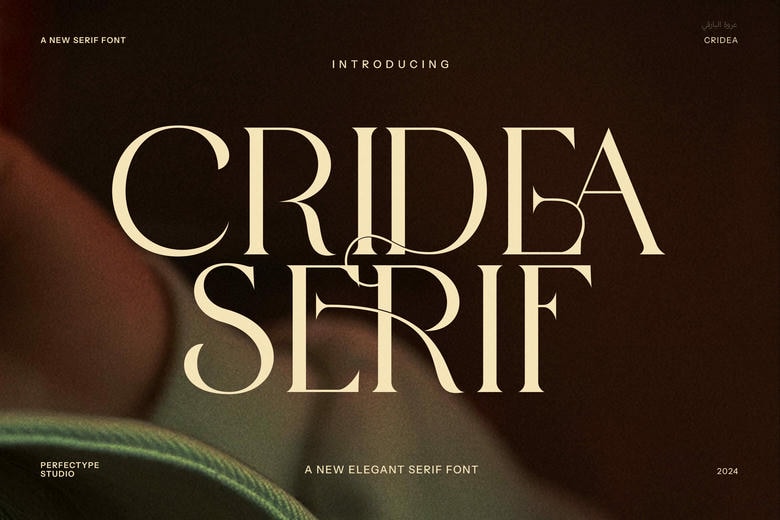
Cridea Font
One of the most beautiful textual fonts available on the market is the Cridea Elegant Serif Font and it is unmistakably inspired by the oldest forms of calligraphy. The calibre of the design is easy to comprehend; the serifs mature and classic, the curves sleek and sophisticated to add an air of timeless elegance to any project. Designed with an immense attention to detail regarding the shapes of the letterforms Cridea evokes a scent of classic luxury while not at the same time feeling old-fashioned or out-dated, making it a type perfect for a modern design need.
This font shines in achieving memorable visuals for branding, logos, and identity designs where it delivers form and function in a beautiful, readable form. No matter whether you’re working on an exclusive shop or a gourmet food website, or if you are dealing with luxurious life concept – Cridea Elegant Serif gives the tip to looking back to traditions and, at the same time, having individual style. This type of design is very suitable in areas where there are creative designs which require that a product should have an old look but should not be old-fashioned.
Besides branding, Cridea excels at the company’s editorial layouts, magazines, product packaging, as well as advertising. Its neutral quality and optimal size are suitable for both the large titles and the rest of the body text, where you need your information to be sensible and the viewer to immediately notice it. It complements anyone fashion food or hospitality by improving the appearance with its presence.
The Cridea Elegant Serif Font is well beyond being merely a typeface; it is elegance at its best of class work for designers in their designs. If you want your next project to be unique, turn to Cridea, the beautiful timeless design.
Cridea Serif Font